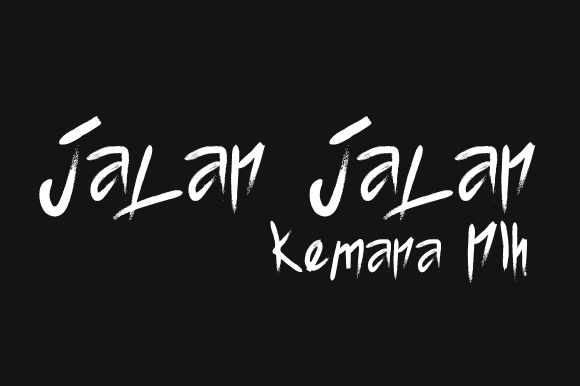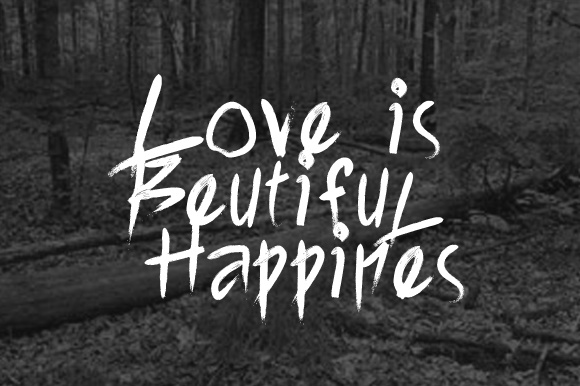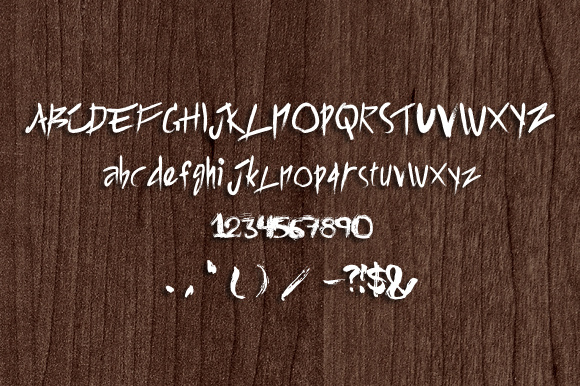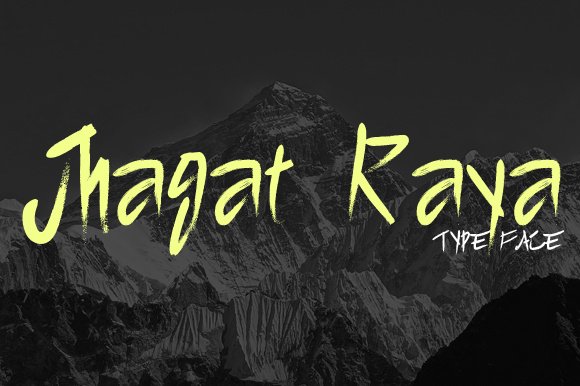
Introduction to Jhagat Raya Font
Jhagat Raya is a simple hand graffiti font, perfect for use in projects that need a relaxed and approachable vibe.
This script font has a brush stroke quality that is appealing in a wide range of works .
Key Features of Jhagat Raya Font
Why Choose Jhagat Raya Font?
Jhagat Raya Font offers exceptional quality and versatility, making it a valuable addition to your design toolkit. Whether you’re creating for personal projects or commercial use, Jhagat Raya Font delivers professional results.